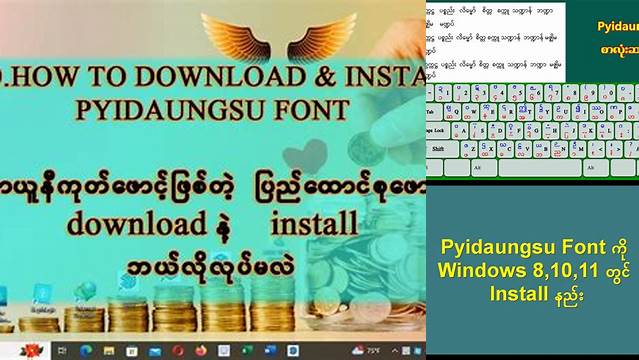
What is the Pyidaungsu Number Font?
Okay, so first things first: What exactly is the Pyidaungsu Number Font? In a nutshell, it's a special font designed to display numbers in the Myanmar script or Burmese script. If you're working with documents, designs, or anything else that requires Burmese numerals, this font is your secret weapon. It's not just about the look; it's about preserving the cultural integrity and ensuring your content is accurately represented. These fonts are specifically designed for the Burmese language. They are often used in documents, websites, and other digital media. They are crucial for anyone working with the Burmese language.
The font includes the Myanmar number characters, which are essential for creating documents or projects in Burmese. This font is compatible with Windows 10, so installing and using it is straightforward. This means you can effortlessly use these characters in your digital projects. When working with the Myanmar script, having this font is not just about aesthetics; it's about showing the correct number characters. It can also be used in other software that supports custom fonts. The font ensures that all numbers will be displayed accurately. This is especially important when you're dealing with text in the Myanmar language. If you work with any materials that contain Burmese numerals, you'll want to ensure you have the right font. This guarantees your numbers are displayed properly. Basically, if you're dealing with anything related to the Myanmar language and you need to display numbers, this font is a must-have.
Why Do You Need the Pyidaungsu Number Font?
So, why should you care about downloading the Pyidaungsu Number Font for Windows 10? Well, if you're working on any project that involves the Burmese language, it's an absolute must-have. Think about it: If you're creating documents, presentations, websites, or even just sending emails in Burmese, you need to make sure the numbers are displayed correctly. Otherwise, your audience might get the wrong information, or worse, your work might look unprofessional. The primary reason is to accurately display numbers in the Myanmar script. This font replaces the default number characters with the appropriate Burmese numerals. It guarantees the correct representation of numerical data, especially in a language that uses its own unique system. This is especially true for anyone who is involved in creating content in Myanmar. Another reason is for consistency. If you are creating documents or projects with multiple people, having the same font ensures uniformity. Everyone sees the same numbers, regardless of the program or operating system they are using. The importance of using the correct font cannot be overstated, particularly if you need to work with different types of software and operating systems. Furthermore, the use of a specialized font like the Pyidaungsu Number Font is a sign of professionalism and attention to detail. It shows your audience that you have taken the time and effort to present information correctly. This makes a big difference in how people perceive your work. In essence, the need for this font boils down to accuracy, consistency, and professionalism. Whether you are a student, a professional, or just someone interested in the Burmese language, having this font is essential to creating content that is both accurate and visually appealing.